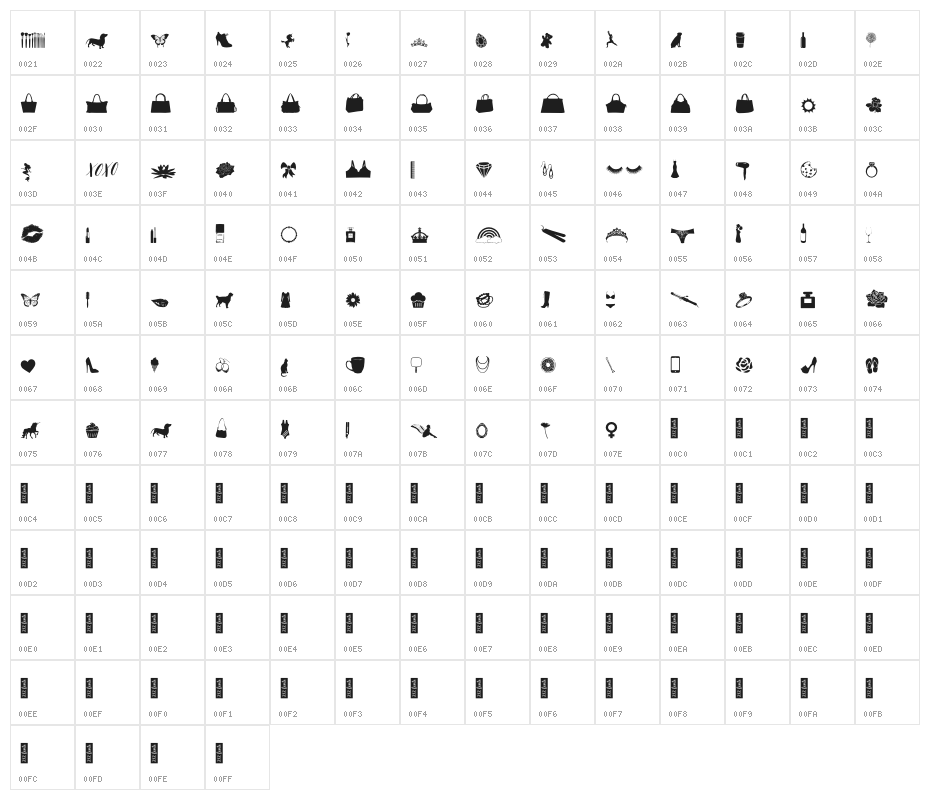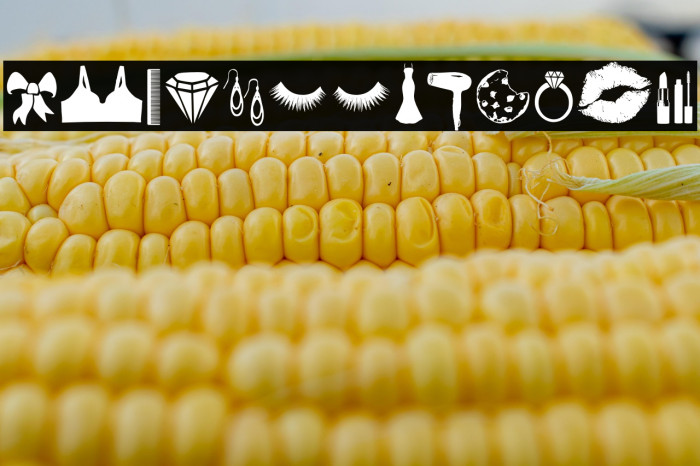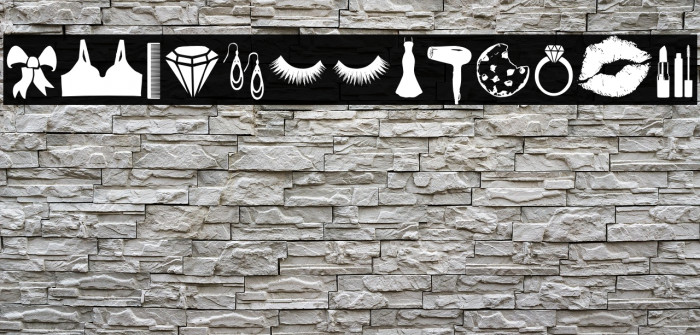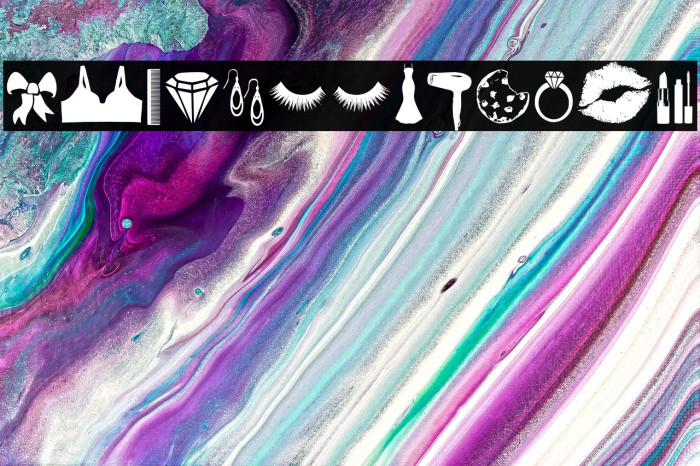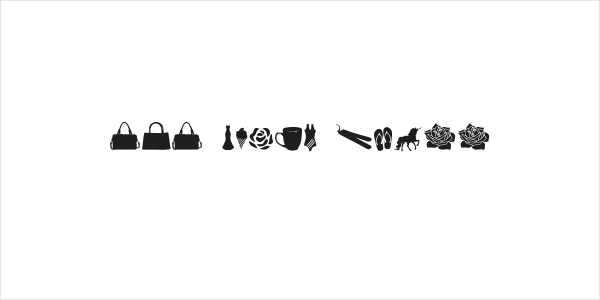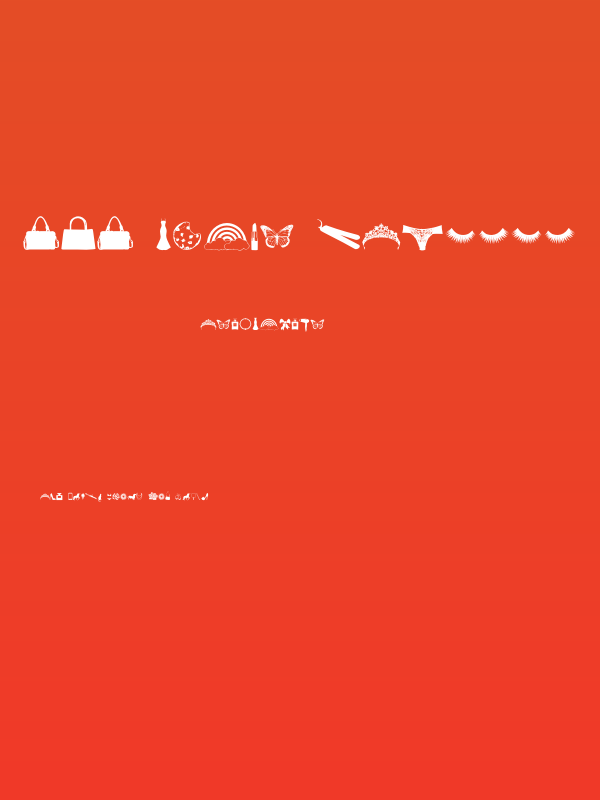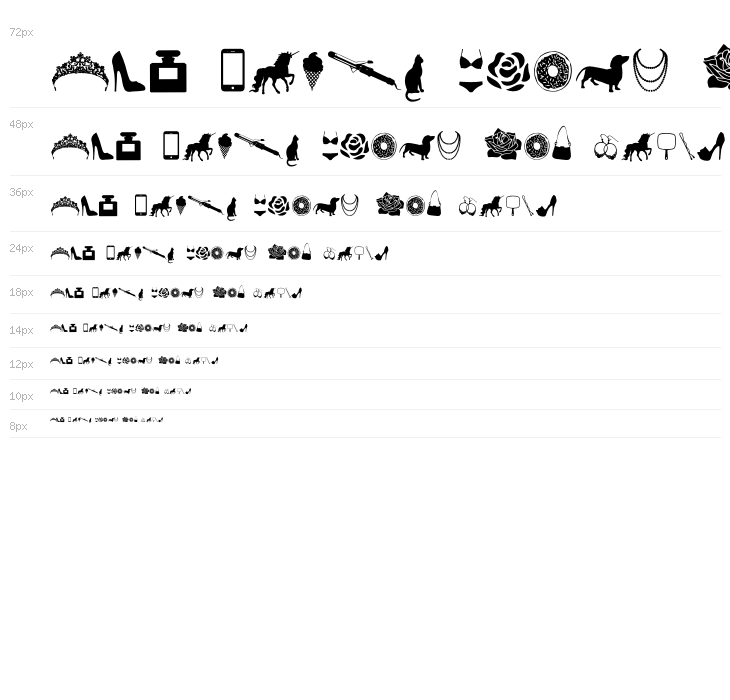
212 Girly Stuff Font
212 Girly Stuff Description
A decorative dingbat font featuring a variety of feminine-themed icons such as makeup, accessories, shoes, handbags, animals, and whimsical objects. Each character is represented by a unique silhouette illustration, offering playful and stylish motifs.
| Overall Style | Decorative, Playful, Feminine |
| Use Case | Icons, Decorative elements, Themed graphics |
| Proposed Projects | Scrapbooking, invitations, social media graphics, branding for beauty or fashion, stickers, and decorative headings. |